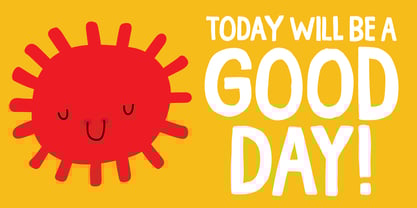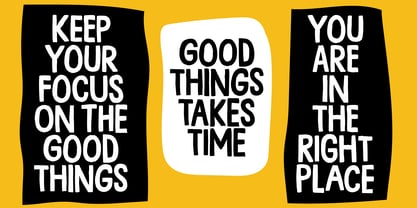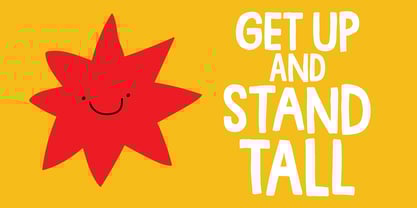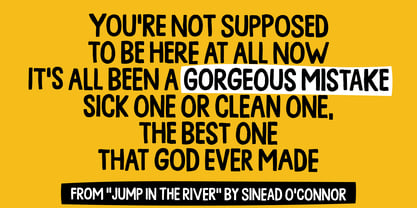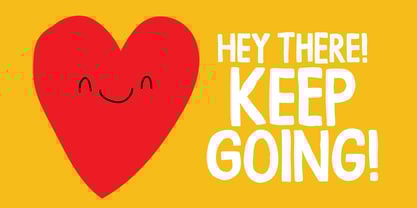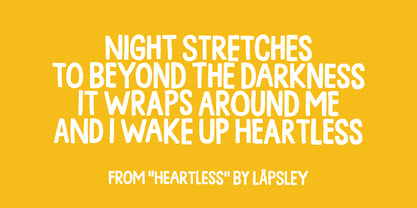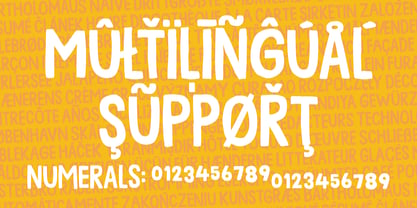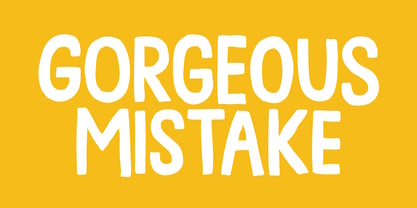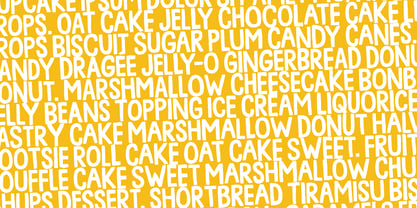
Gorgeous Mistake
by Bogstav
The Gorgeous Mistake Font Family was designed by Jakob Fischer and published by Bogstav. Gorgeous Mistake contains 2 styles and family package options.
Even mistakes can be gorgeous! Have you ever tried that? :)
My font is no mistake, and it is gorgeous! :) Gorgeous Mistake
Handmade details and slightly rough lines and full of organic life!
I have made 5 different versions of each letter, and they automatically cycle as you type - leaving your text more lively and organic!